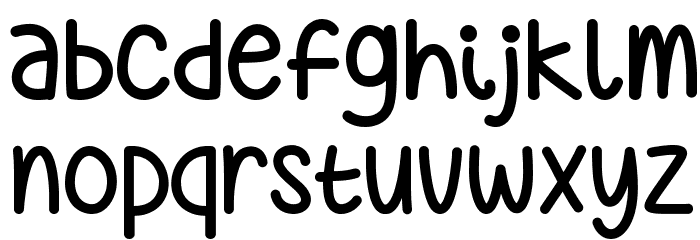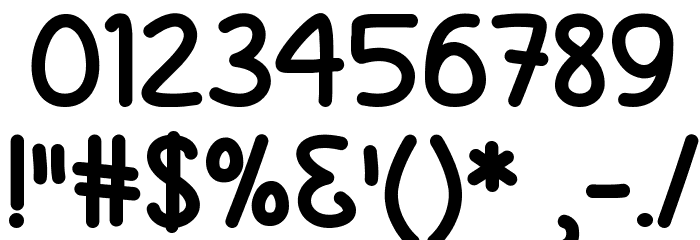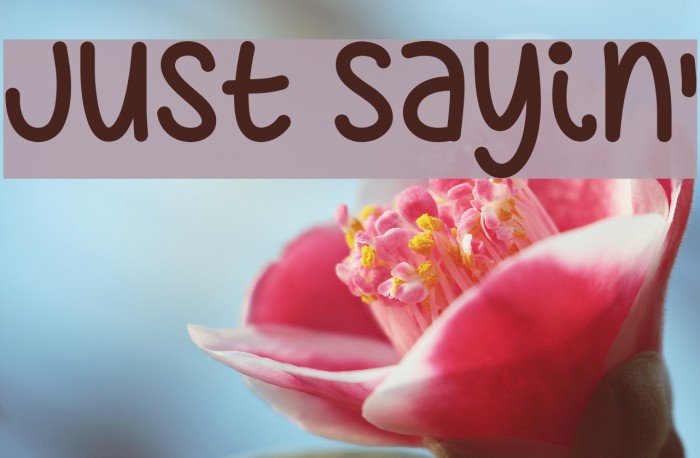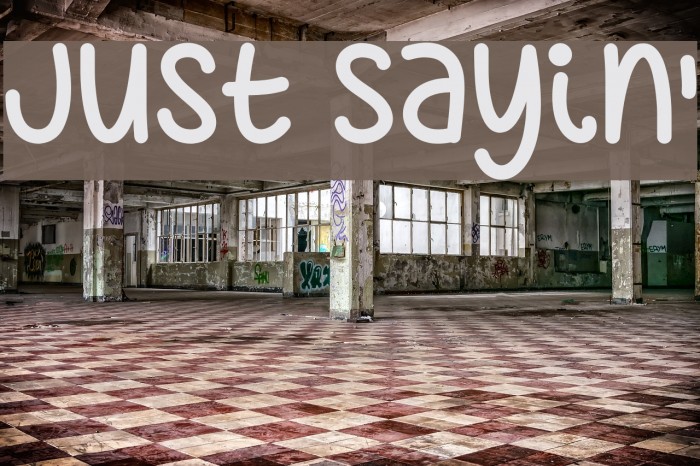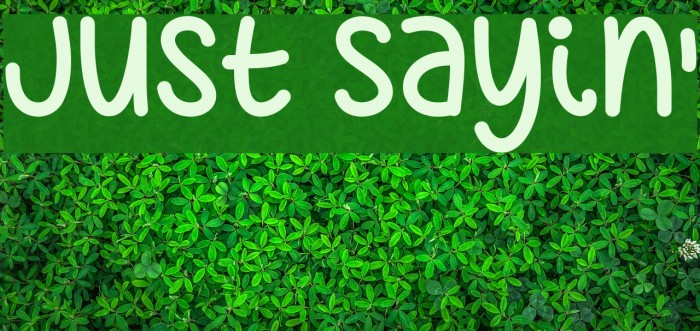
Just Sayin' Font
This playful and rounded font features a casual, handwritten style that exudes a friendly and approachable vibe. Each character is crafted with smooth curves and consistent stroke widths, giving it a cohesive and uniform appearance. The uppercase and lowercase letters maintain a balanced height, ensuring readability while adding a touch of whimsy. Numbers and special characters are designed with the same playful aesthetic, making them perfect for a variety of creative projects. The font's informal style makes it ideal for fun and lighthearted applications, such as children's books, greeting cards, and playful branding.
A playful, rounded, handwritten-style font with smooth curves and consistent strokes.
- Proposed Projects: Ideal for children's books, greeting cards, playful branding, and casual invitations.
- Overall Style: Casual, Playful
- Use Case: Headlines, Logos, Informal Text